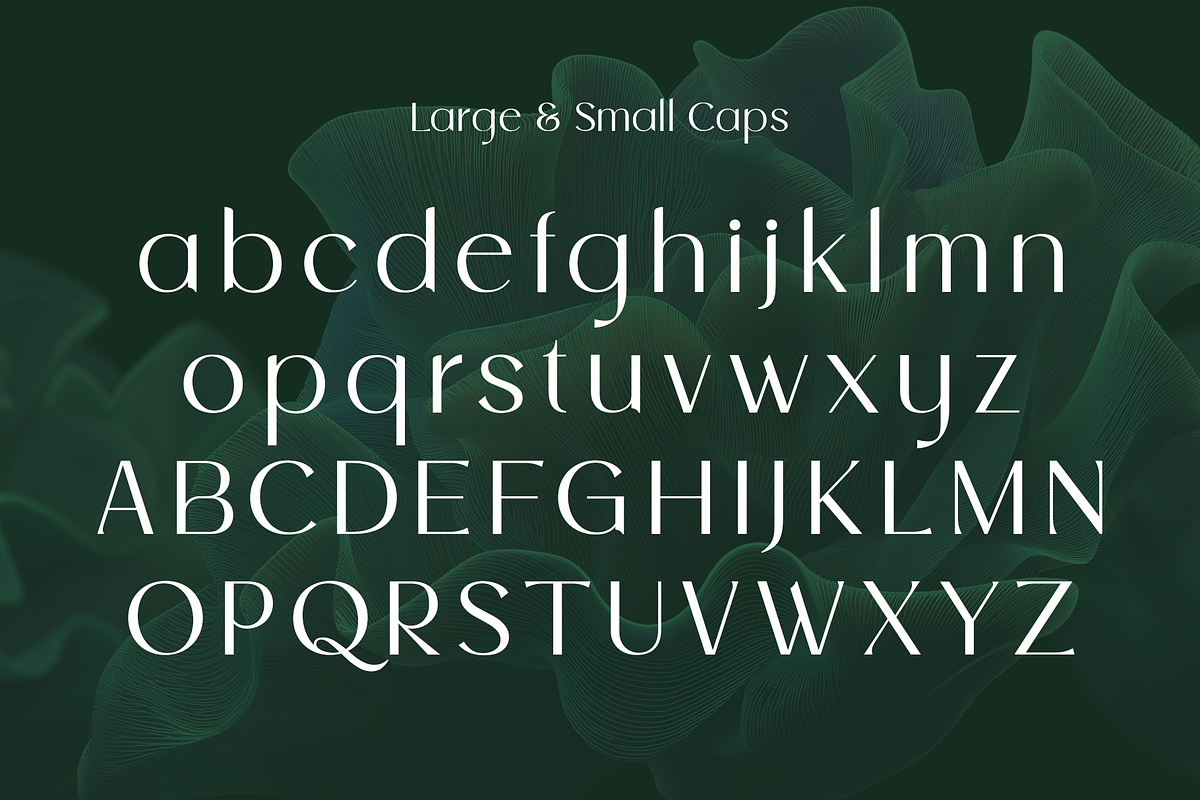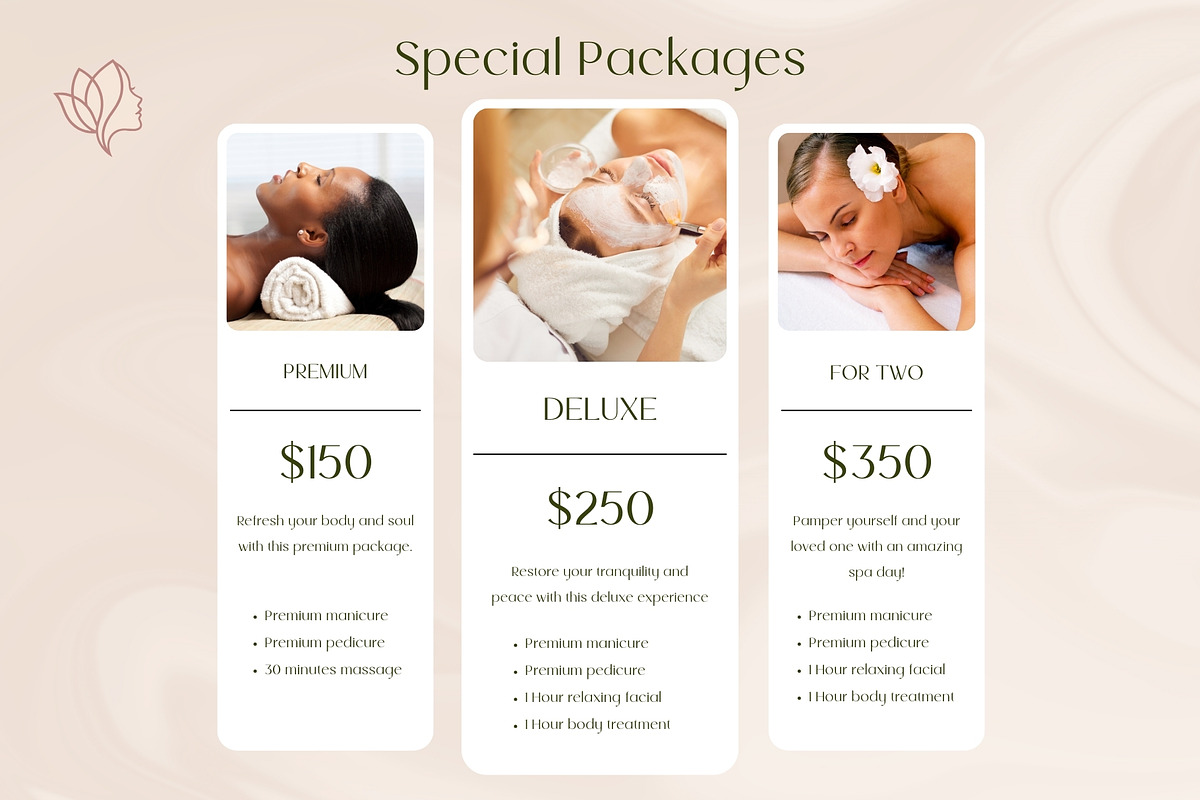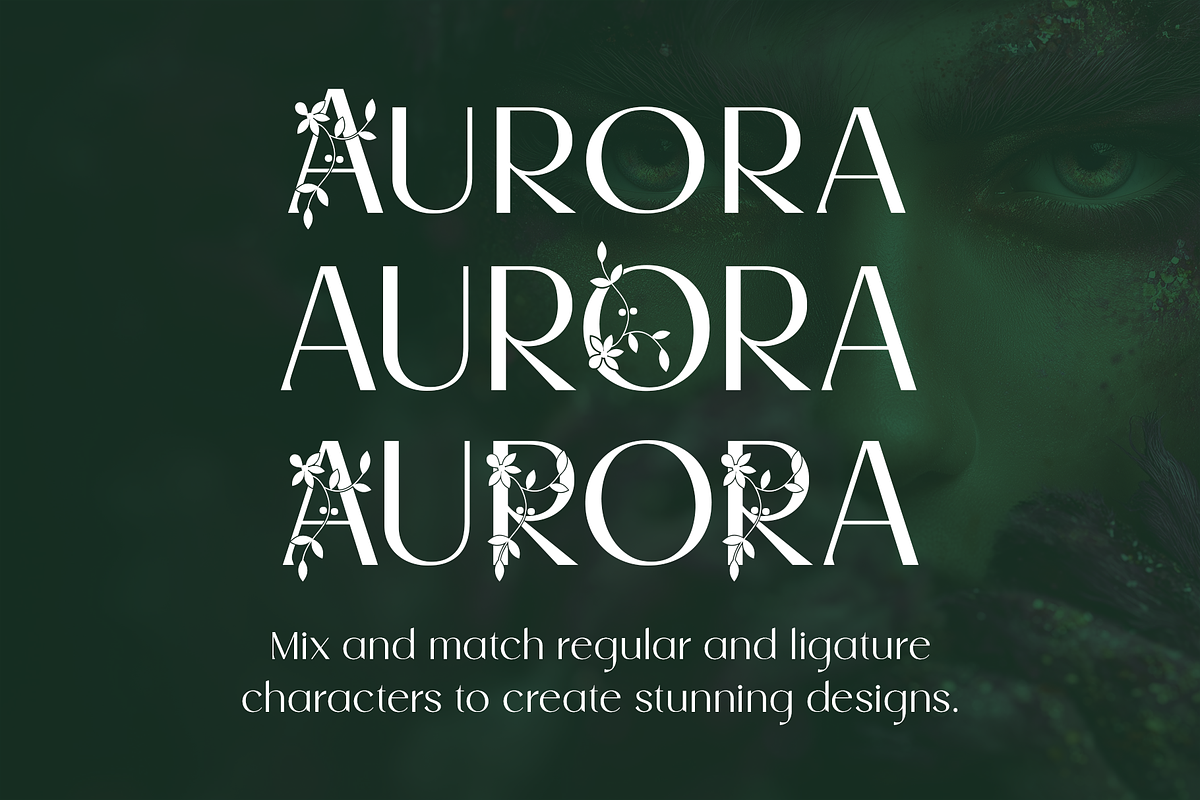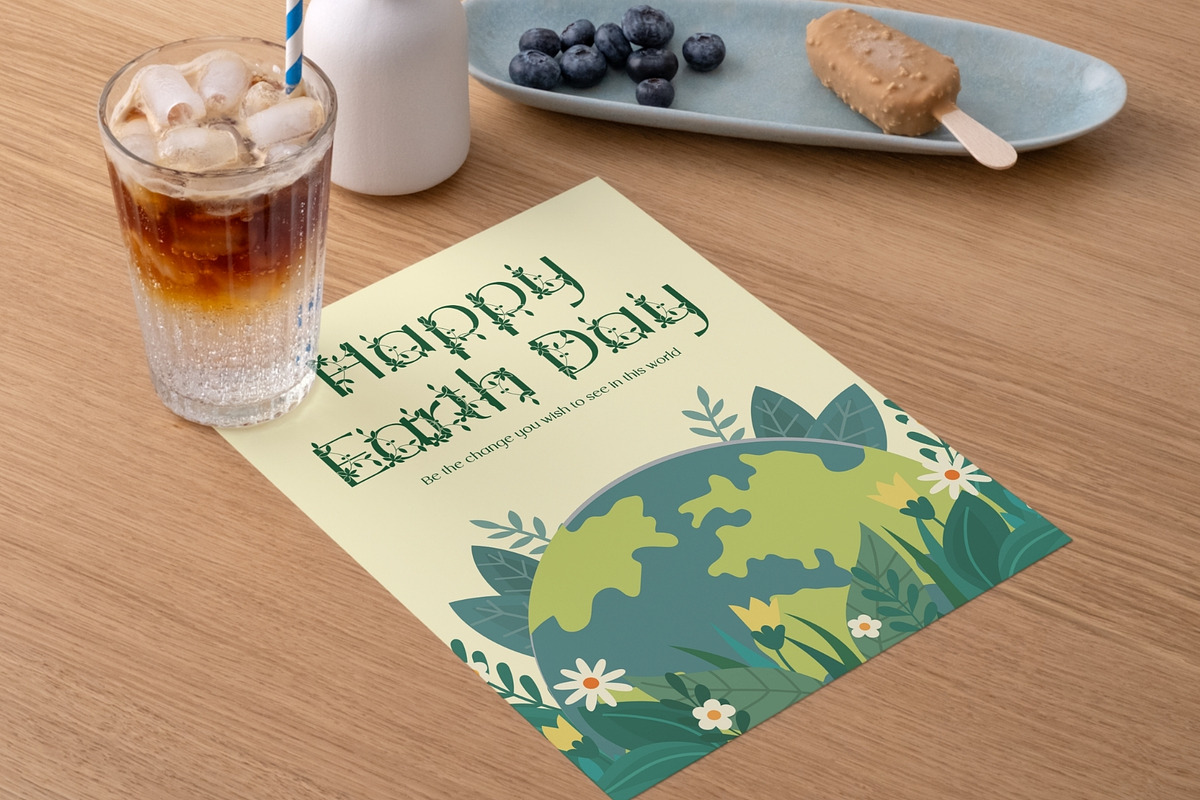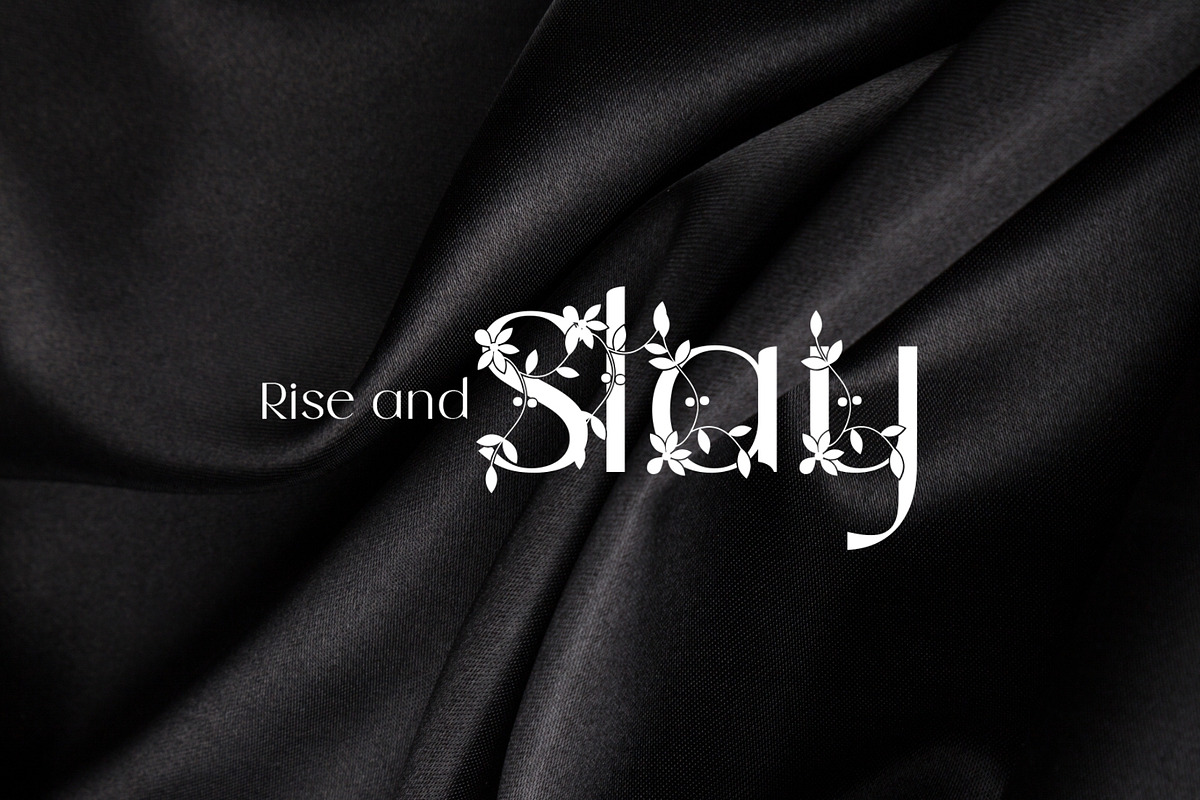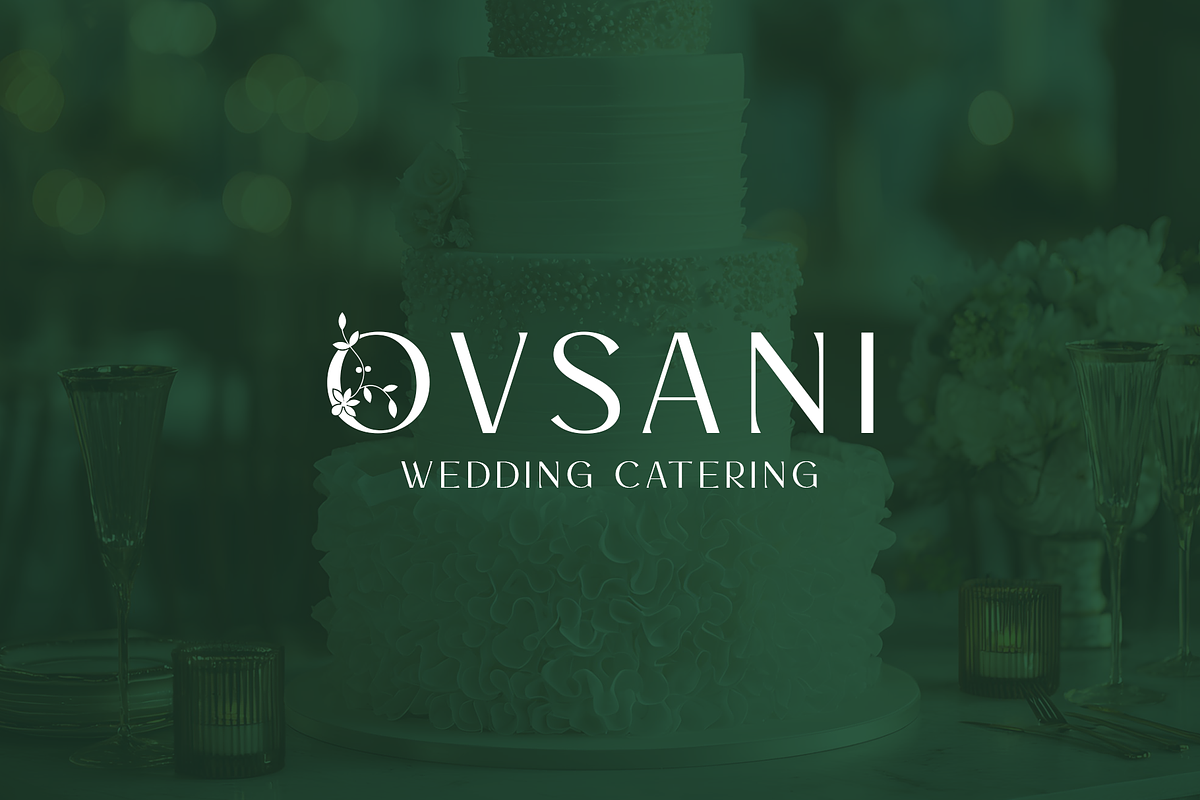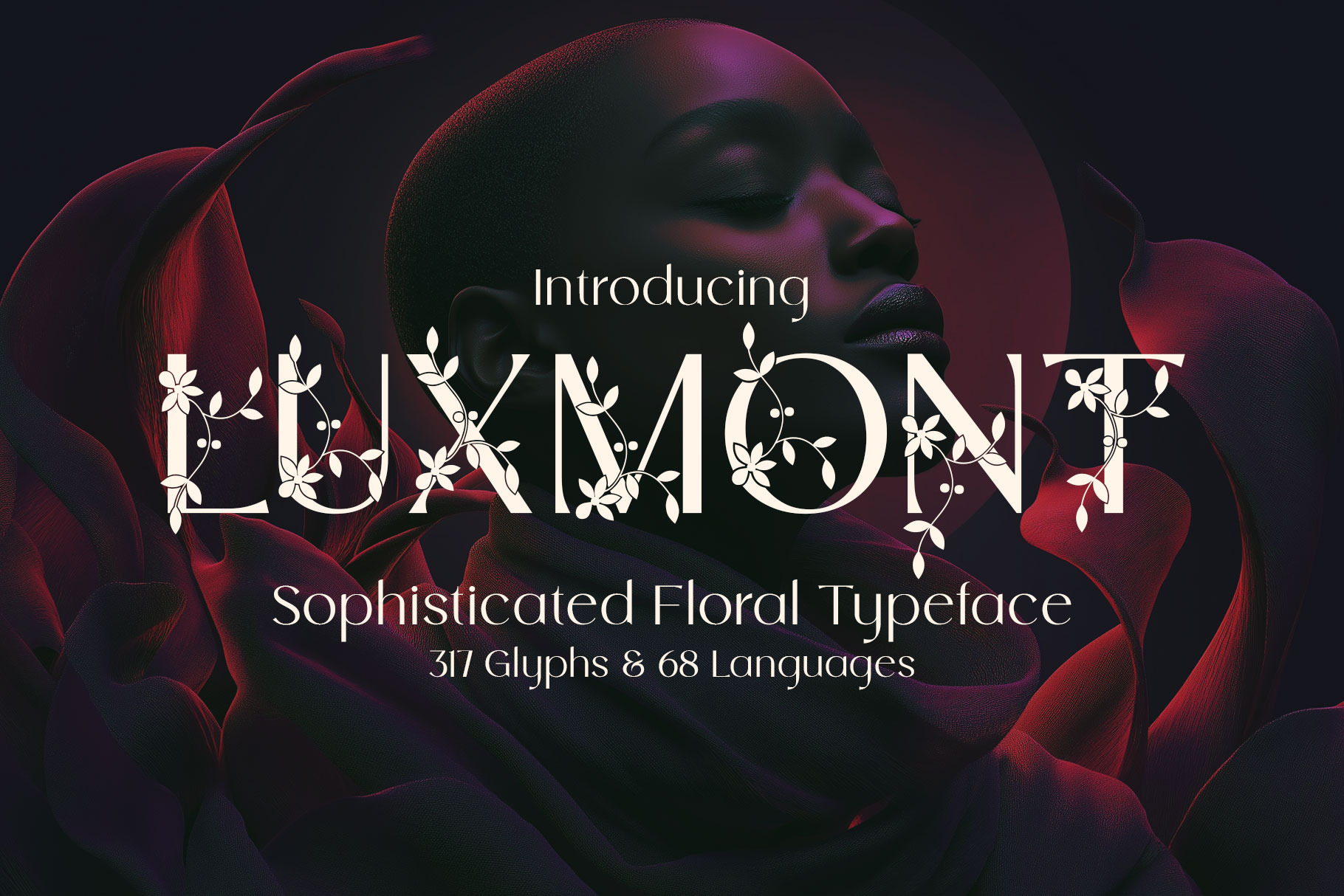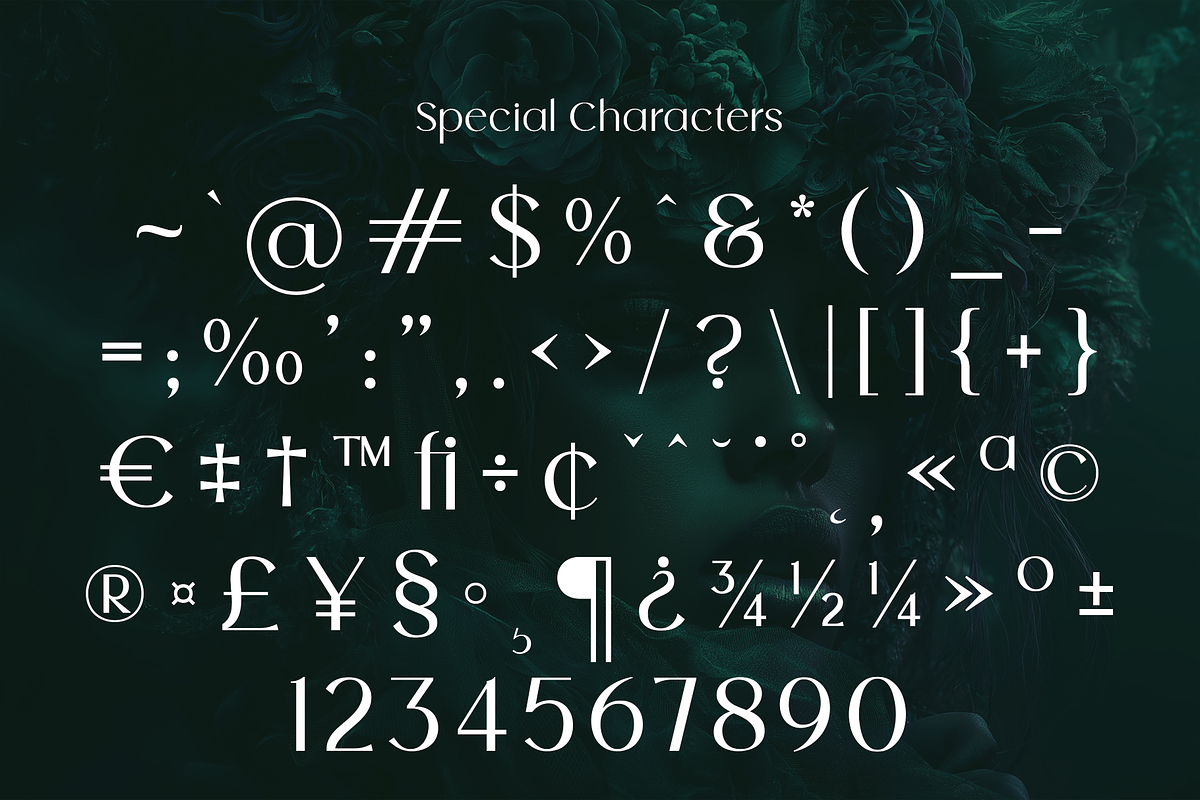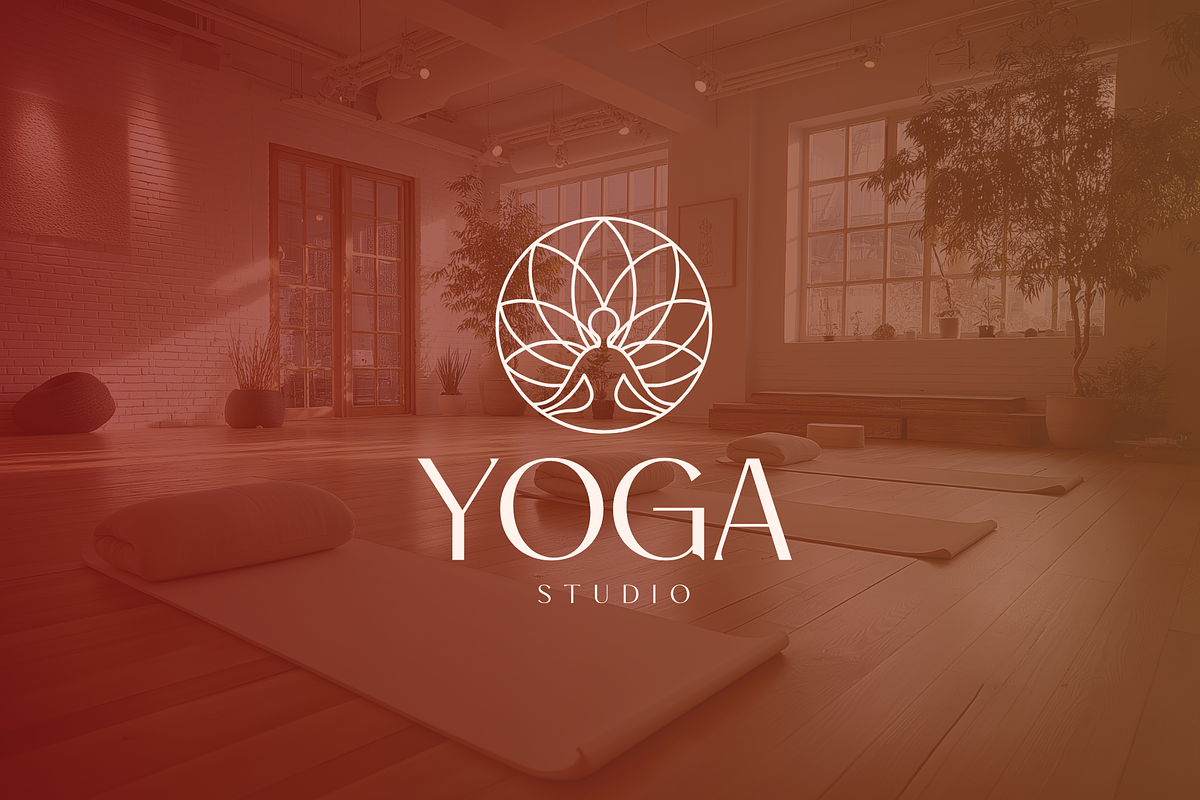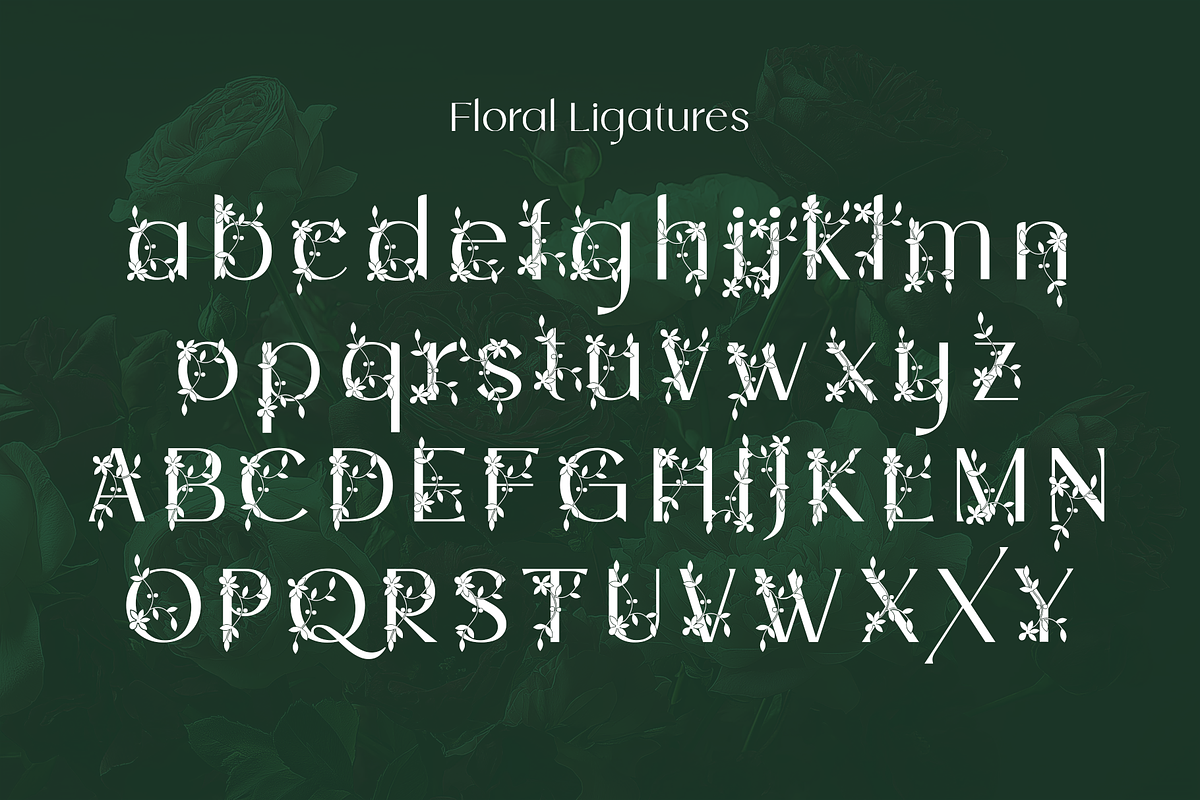
Luxmont - Elegant Floral Typeface
Elevate your brand with Luxmont, a refined and stylish luxury typeface designed for beauty, wellness, and high-end aesthetics. Graceful yet expressive, Luxmont blends timeless elegance with delicate botanical artistry — making it the perfect choice for brands that want to feel soft, premium, and unforgettable.
What makes Luxmont truly special is its floral ligature system. Each letterform can transform into a decorative statement through beautifully crafted flowers and leaves woven seamlessly into the typography. The result is lettering that doesn’t just communicate — it blooms.
Whether you're designing for calm wellness spaces or upscale editorial layouts, Luxmont brings a gentle sophistication that feels both modern and timeless.
- Spa branding
- Yoga studios
- Beauty & skincare brands
- Magazines & editorials
- Wedding materials
- Websites & social media
- Packaging & labels
With 317 glyphs and support for 68 languages, Luxmont offers both creative freedom and global usability.
From minimalist elegance to floral-rich luxury — Luxmont lets you design with grace.